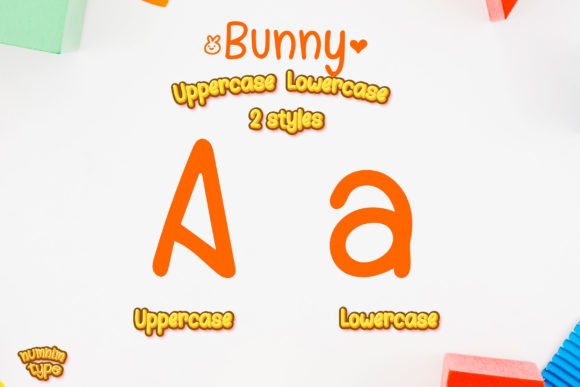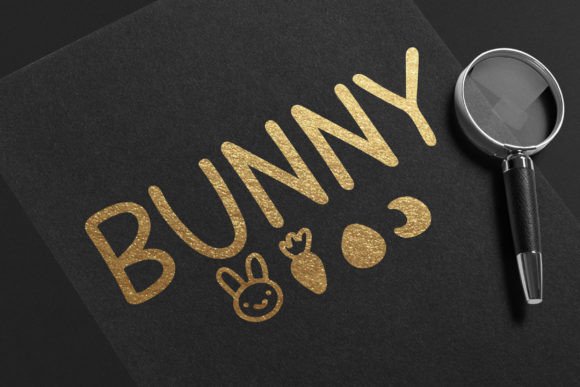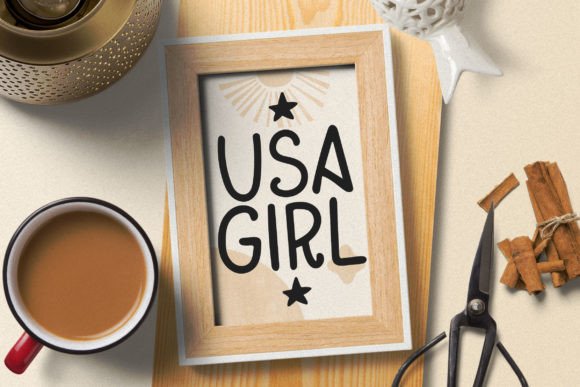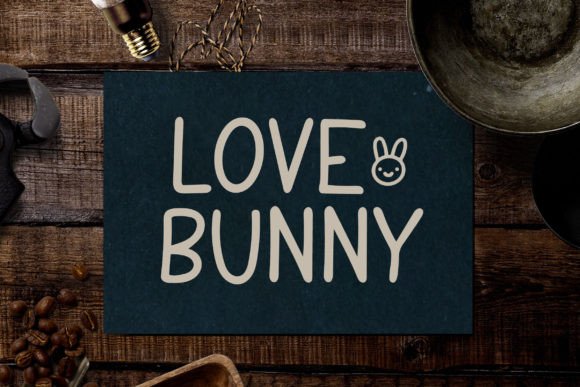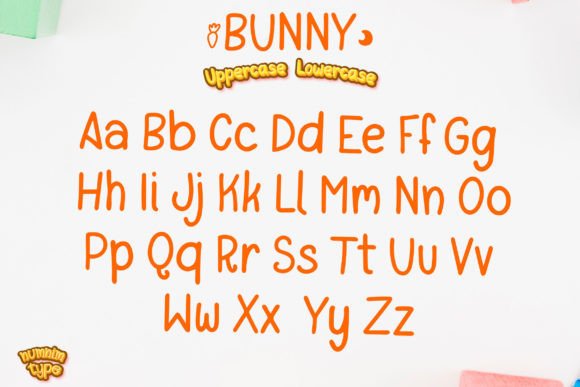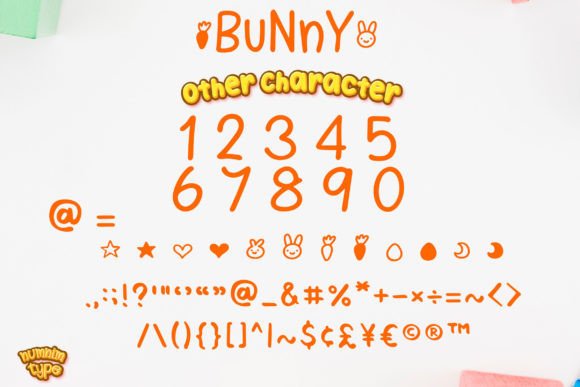
Bunny Font: The Ultimate Handwritten Font for Fun and Playful Designs
Are you looking for a font that can add a touch of whimsy and joy to your designs? Look no further than the Bunny Font! This handwritten font is perfect for crafters, designers, and anyone who wants to create fun and playful designs that pop. In this article, we’ll take a closer look at the Bunny Font, its features, and how you can use it to take your designs to the next level.
What is Bunny Font?
Bunny Font is a handwritten font that exudes a vibrant and joyful feel. Its fun and playful characters make it the perfect font for a variety of design projects, including stickers, mugs, t-shirts, ornaments, Easter event cards, and more! The font is designed to bring a smile to your face and a touch of personality to your designs.
Key Features of Bunny Font
So, what makes Bunny Font so special? Here are some of its key features:
- Handwritten feel: Bunny Font has a beautiful, handwritten feel that adds a personal touch to your designs.
- Vibrant and joyful: The font’s playful characters are designed to bring a sense of joy and whimsy to your designs.
- PUA encoded: Bunny Font is PUA (Private Use Area) encoded, which means you can easily access all glyphs and swashes.
- Multilingual support: The font supports multiple languages, making it perfect for designers who work with international clients.
Use Cases for Bunny Font
Bunny Font is a versatile font that can be used for a variety of design projects. Here are some ideas to get you started:
- Stickers: Add a playful touch to your stickers with Bunny Font. Perfect for kids’ parties, Easter events, or just for fun!
- Mugs: Create personalized mugs with Bunny Font. Great for gifts or promotional items.
- T-shirts: Design fun and playful t-shirts with Bunny Font. Perfect for kids’ clothing or as a novelty item.
- Ornaments: Add a touch of whimsy to your ornaments with Bunny Font. Great for Easter or Christmas decorations.
- Easter event cards: Create festive Easter event cards with Bunny Font. Perfect for invitations, thank-you cards, or greeting cards.
Why Choose Bunny Font?
So, why should you choose Bunny Font for your design projects? Here are just a few reasons:
- Unique and playful: Bunny Font is a one-of-a-kind font that adds a touch of personality to your designs.
- Multilingual support: Bunny Font supports multiple languages, making it perfect for international design projects.
Tips for Using Bunny Font
Here are a few tips for using Bunny Font in your design projects:
- Experiment with colors: Bunny Font looks great in a variety of colors, so don’t be afraid to experiment and find the perfect hue for your design.
- Mix and match: Combine Bunny Font with other fonts or graphics to create a unique and playful design.
- Pay attention to spacing: Make sure to adjust the spacing between letters and words to ensure your design looks clean and easy to read.
Bunny Font is a fun and playful handwritten font that’s perfect for designers and crafters who want to add a touch of whimsy to their designs. With its vibrant and joyful feel, PUA encoding, and multilingual support, Bunny Font is a versatile font that can be used for a variety of design projects. Whether you’re creating stickers, mugs, t-shirts, or Easter event cards, Bunny Font is sure to bring a smile to your face and personality to your designs.